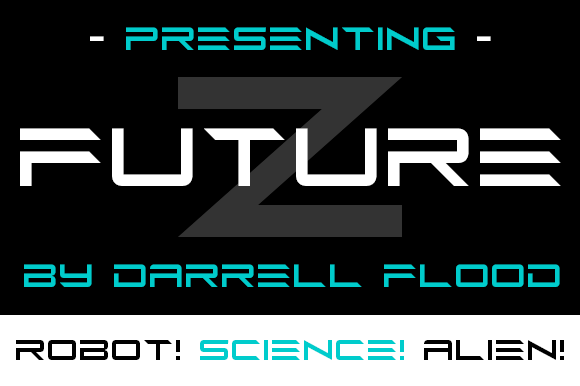
Journey into the captivating realm of Future Z, a futuristic display font that harmoniously blends curves and sharp edges. This visual masterpiece has been meticulously crafted to transport you to a world of science fiction and high-tech wonders. Unleash your imagination and delve into the boundless possibilities that Future Z presents. As a font family, Future Z commands attention with its striking presence, making it the perfect choice for logos, headlines, and designs that demand a bold and futuristic aesthetic. With Future Z, you hold the power to create designs that resonate with the cutting-edge spirit of innovation and technological advancement.
Prepare to be captivated by the font's intricate details and mesmerizing flow. Its curves evoke a sense of elegance and fluidity, while the sharp edges add a touch of dynamic energy. This exquisite synergy creates a visual experience that is both visually stimulating and deeply immersive. Engage your audience with designs that transcend the ordinary and embrace the extraordinary. Future Z is not just a font; it's a portal to a world where creativity and imagination thrive.
Embrace the font's versatility and let it become your creative ally. Whether you're designing logos, posters, website headers, or social media graphics, Future Z seamlessly adapts to your vision. Its captivating presence will elevate your designs, making them stand out from the crowd and leaving a lasting impression on your audience. Step into the future with Future Z and unlock the gateway to endless creative possibilities.